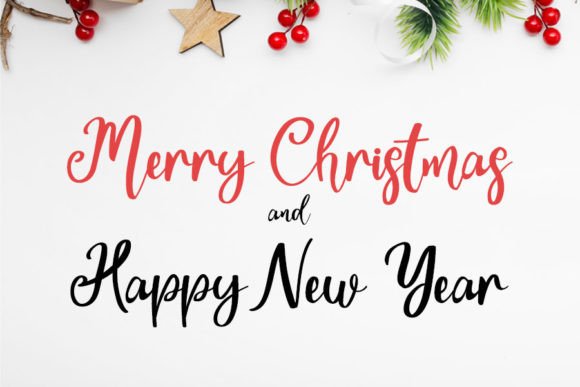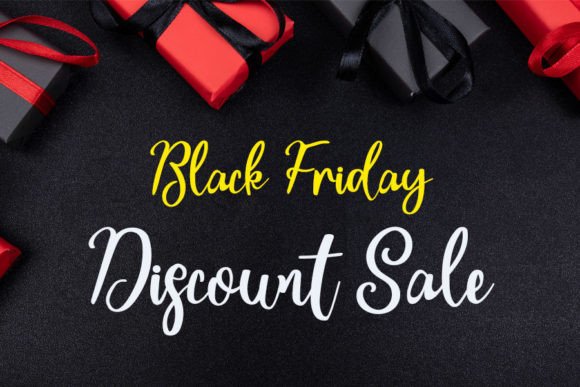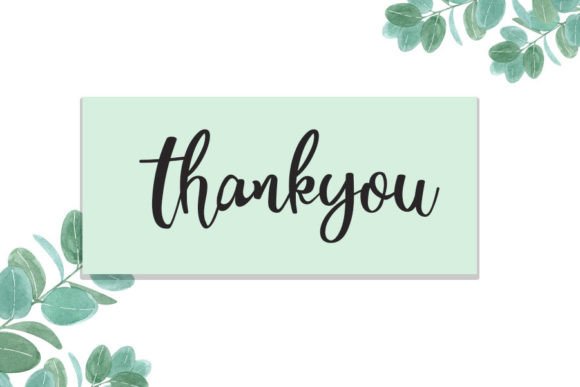
Celebration Font: Adding a Touch of Whimsy to Your Designs
Are you looking for a font that can add a dash of fun and friendliness to your designs? Look no further than Celebration Font! This delightful handwritten font is perfect for designers and crafters who want to create standout designs that capture the essence of joy and celebration.
The Charm of Celebration Font
Celebration Font is a unique and charming handwritten font that is sure to inspire your creativity. Its fun and friendly vibe makes it perfect for a wide range of design projects, from party invitations and greeting cards to branding and packaging. With its distinctive character, Celebration Font can help you create designs that are truly one-of-a-kind.
Key Features of Celebration Font
- Handwritten style: Celebration Font has a lovely handwritten feel that adds a personal touch to your designs.
- Fun and friendly vibe: This font exudes joy and friendliness, making it perfect for designs that require a celebratory feel.
- Unique character: Celebration Font has a distinctive character that sets it apart from other fonts.
- Versatile: This font can be used for a wide range of design projects, from digital designs to print materials.
Uses of Celebration Font
Celebration Font is a versatile font that can be used for a variety of design projects, including:
- Party invitations: Create fun and festive party invitations that set the tone for a memorable celebration.
- Greeting cards: Add a personal touch to your greeting cards with Celebration Font’s handwritten style.
- Branding and packaging: Use Celebration Font to create unique and eye-catching branding and packaging designs.
- Social media graphics: Add a touch of whimsy to your social media graphics with Celebration Font.
Tips for Using Celebration Font
Here are some tips for getting the most out of Celebration Font:
- Experiment with colors: Celebration Font looks great in a variety of colors, so don’t be afraid to experiment and find the perfect hue for your design.
- Mix and match: Combine Celebration Font with other fonts to create a unique and eye-catching design.
- Play with sizes: Use different font sizes to add visual interest to your design.
- Add embellishments: Consider adding embellishments, such as graphics or illustrations, to enhance your design.
Celebration Font is a fun and friendly handwritten font that is perfect for designers and crafters who want to add a touch of whimsy to their designs. With its unique character and versatile uses, Celebration Font is sure to inspire your creativity and help you create standout designs that capture the essence of joy and celebration.
Get Inspired with Celebration Font